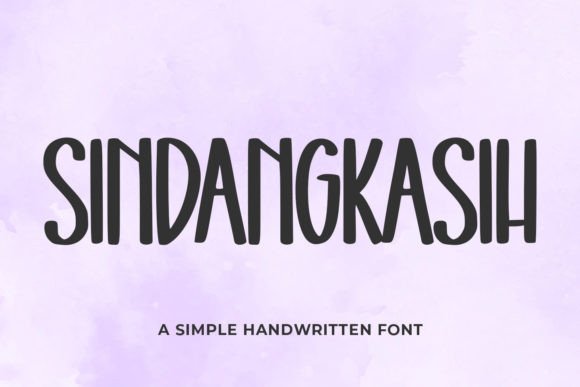
Prepare to be mesmerized by Sindangkasih, an extraordinary duo font that will ignite your creativity and make your designs shine. This enchanting font family, consisting of a captivating handwritten script and a bold display font, is a true masterpiece that will elevate your projects to new heights.
With its effortlessly elegant handwritten style, Sindangkasih's script font dances across the page, evoking a sense of authenticity and charm. Its meticulously crafted characters, imbued with the warmth and personality of genuine handwriting, will add a touch of heartfelt charm to your designs. Whether you're creating heartfelt quotes, personalized invitations, or eye-catching social media posts, this font will infuse your words with a touch of magic.
Complementing the script font perfectly, the Sindangkasih display font exudes strength and confidence. Its bold, striking characters command attention, making it the perfect choice for headlines, logos, and any text that demands to be seen. The clean lines and modern aesthetic of this font create a sense of sophistication and professionalism, ensuring that your designs stand out from the crowd.
Together, the Sindangkasih script and display fonts form an unbeatable duo, providing endless creative possibilities. Whether you're a seasoned designer or just starting out, this font family will empower you to create designs that captivate and inspire. Unleash your imagination and let Sindangkasih transform your creative vision into a stunning reality.
With its versatility and timeless appeal, Sindangkasih is the perfect addition to any font collection. Its ability to effortlessly blend elegance and boldness makes it suitable for a wide range of projects, from delicate wedding invitations to bold and eye-catching marketing materials. Don't miss out on this opportunity to elevate your designs and leave a lasting impression on your audience.
Embrace the beauty of Sindangkasih today and embark on a journey of creativity that will astound and delight. Let your designs speak volumes with this extraordinary font duo, and experience the joy of creating truly remarkable works of art.